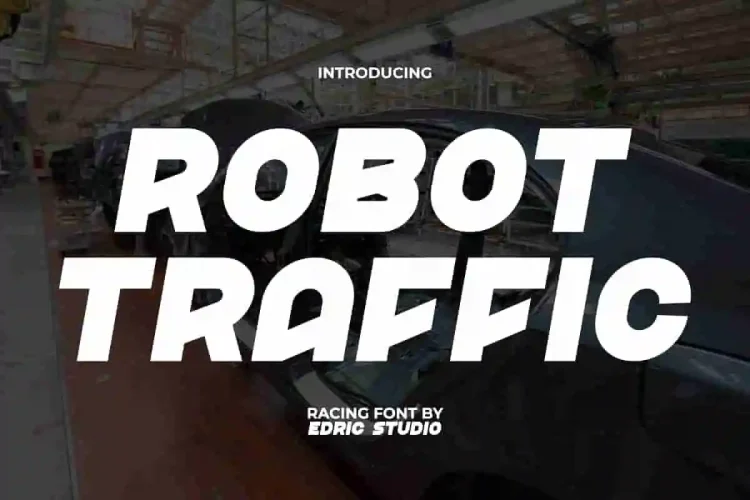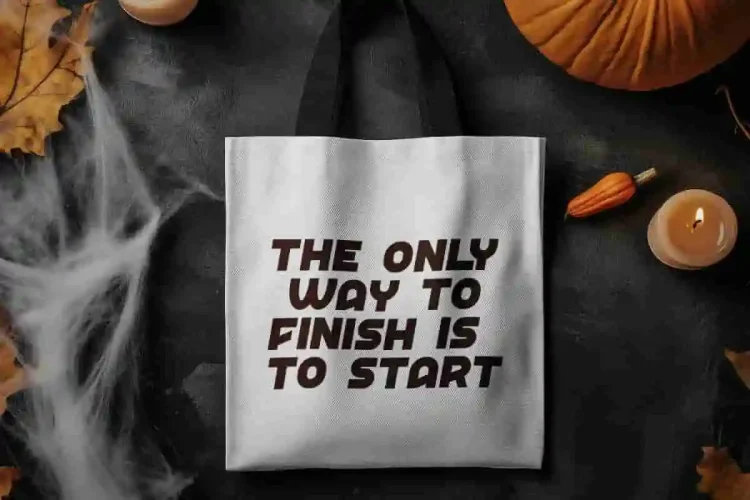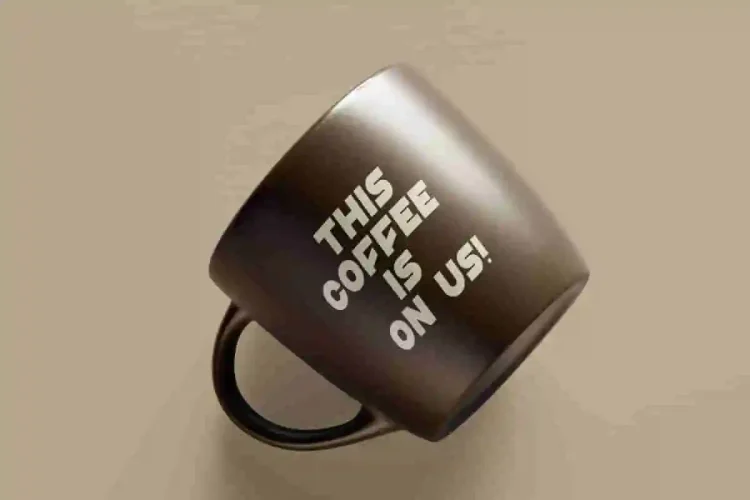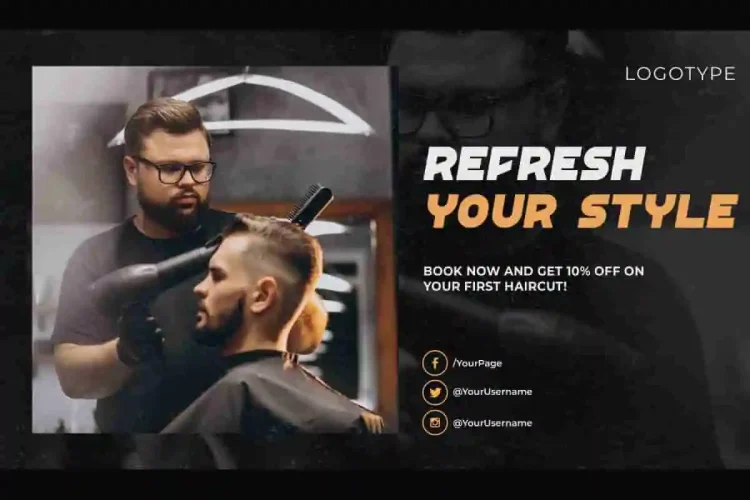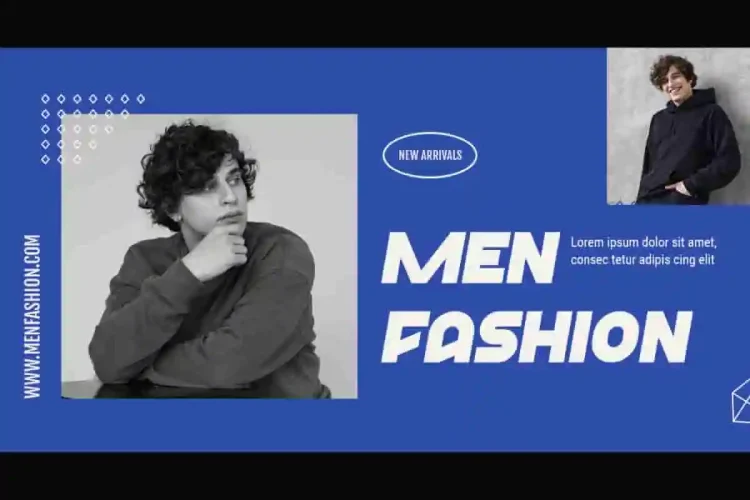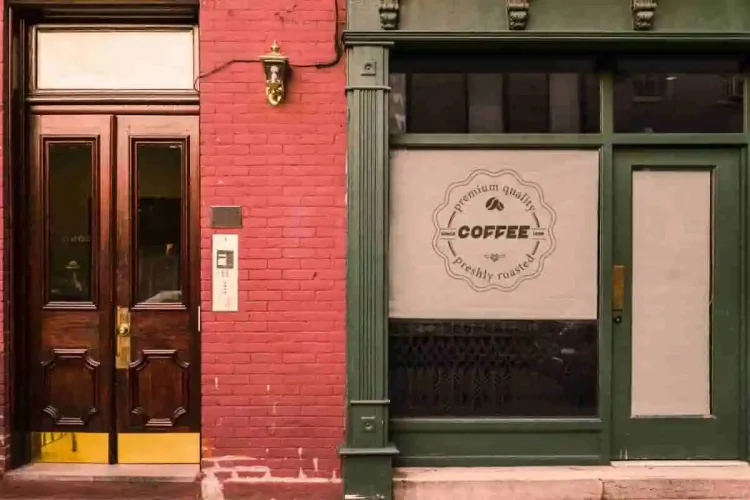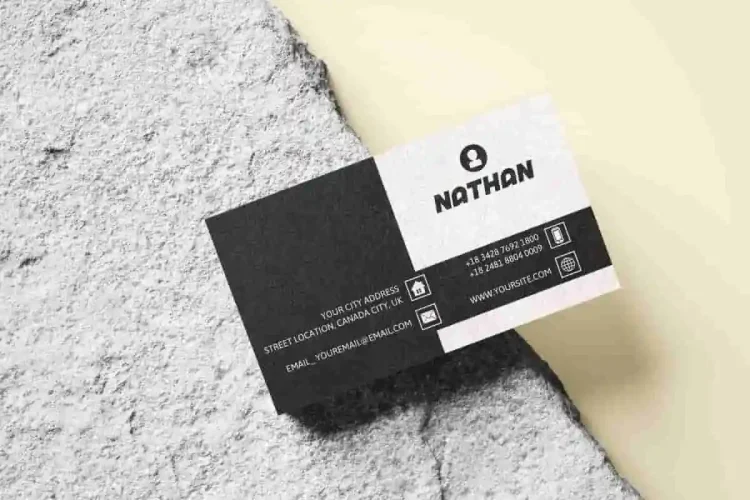
Robot Traffic Font is a fun fat playful gaming racing font with precisely adjusted proportions with subtle contours and contrasts. This shape gives the font an interesting look and keeps it minimalist. Perfect for banners, brochure, business card, flyer, headlines, label tag, logos, mockup, poster, sign design, screen printing, stationery, sticker, template, title, website, and more.
Robot Traffic Font includes a complete set of ALL CAPS for both Uppercase and Lowercase letters, Numbers, Punctuation, and Symbols. It’s a bold font with modernity and power designed to make your designs stand out with confidence and impact. This font ensures to convey a look of professionalism and contemporary style. It definitely offers unlimited creative possibilities. Perfect for accessories and merchandise, advertising, barbershop, clothing brand, coffee shop, corporate, fashion, game developers, home furniture, etc.